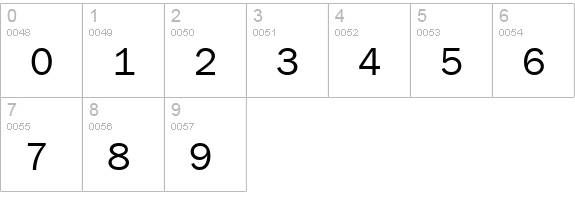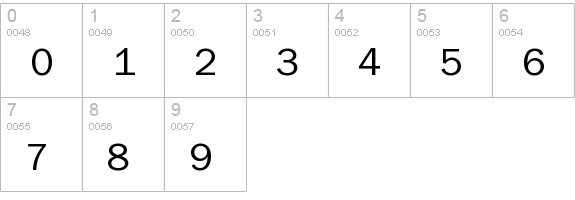
Franklin Gothic Book is a comfortable, highly readable variant in the Franklin typeface family \xE2\x80\x94 well suited to long-form body text, articles, and editorial content.
Franklin Gothic Book font is a classic and versatile typeface that exudes elegance and professionalism. With its clean lines and balanced proportions, this font is perfect for a wide range of design projects, from print materials to digital media. The Franklin Gothic Book font is known for its readability and clarity, making it a popular choice for body text in publications and websites. One of the best things about Franklin Gothic Book font is that it is free to download at FontsMarket.com. This means that you can easily access this high-quality font for your design needs without any cost. Whether you are working on a personal project or a professional assignment, Franklin Gothic Book font is a reliable option that will help you achieve a polished and sophisticated look. Download it today and add a touch of refinement to your designs.